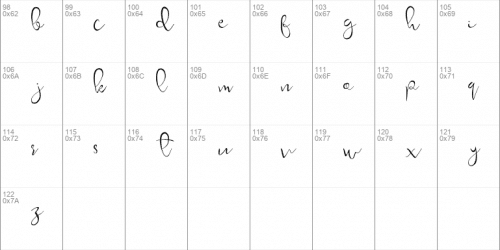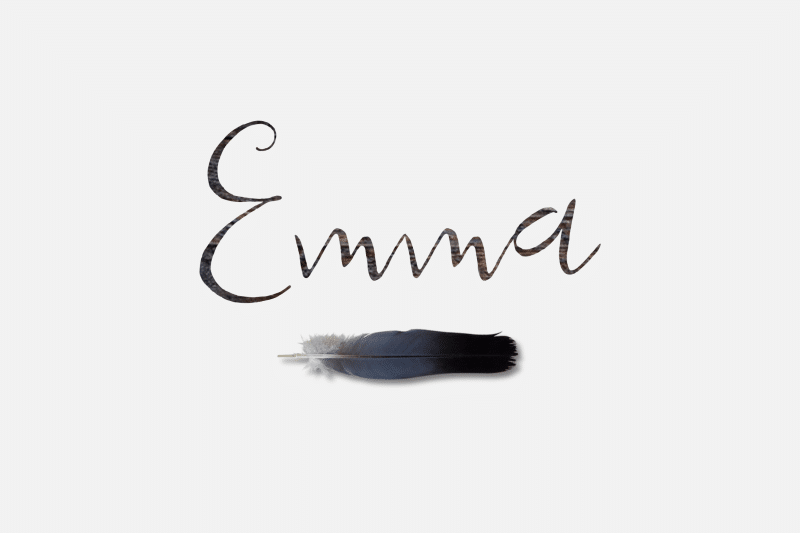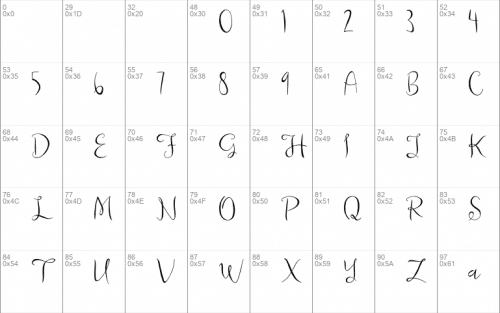
Emma Script is guaranteed to make your text stand out – perfect for logos, printed quotes, invitations, cards, product packaging, headers and whatever your imagination holds.